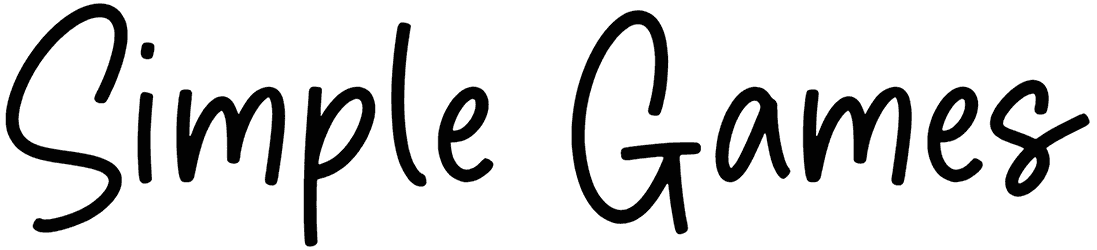
Simple Games Font
If you set out to capture playfulness through a clear handwriting style, Simple Games is pretty much what you’ll get out of it. All the focus will be on your message, as this marker font also underlines a childish quality in the background.
It won’t just be the perfect gaming font for your kids’ video game menus and branding your toys and board games. In fact, Simple Games can make anything sound more fun, from HBD posters to apparel, and more.